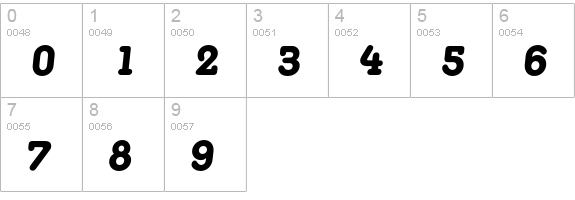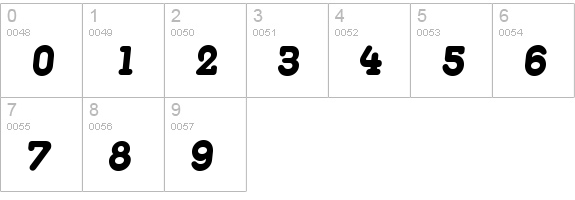
Media-BoldIta Font Details
Media-BoldIta font is a modern and stylish typeface that exudes boldness and sophistication. Its sleek and elegant design makes it a perfect choice for various design projects, from branding to editorial layouts. The italic style adds a touch of flair and dynamism to any text, making it stand out and capture attention. What sets Media-BoldIta font apart is that it is available for free download at FontsMarket.com. This means that you can easily access this high-quality font without any cost, making it a valuable addition to your font library. Whether you are a designer, blogger, or student, Media-BoldIta font offers versatility and creativity to elevate your projects to the next level. With its clean lines, sharp edges, and distinctive style, Media-BoldIta font is sure to make a lasting impression on your audience. Download it today and unleash your creativity with this exceptional typeface.